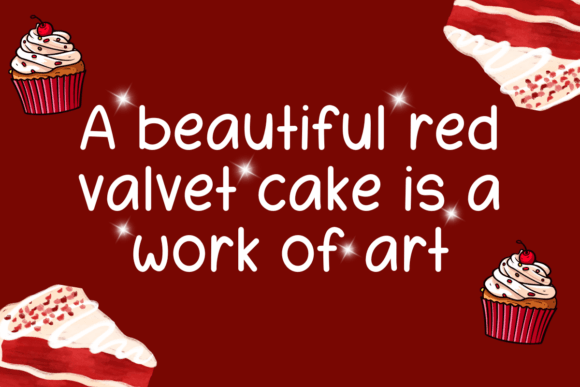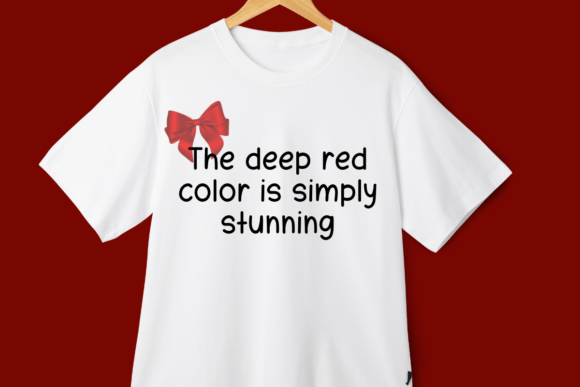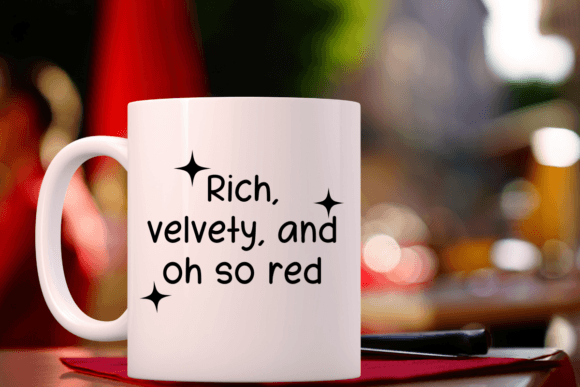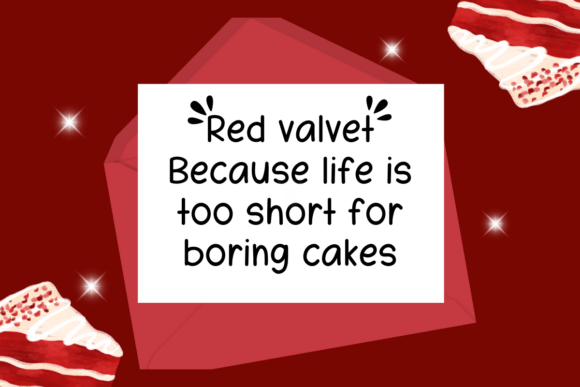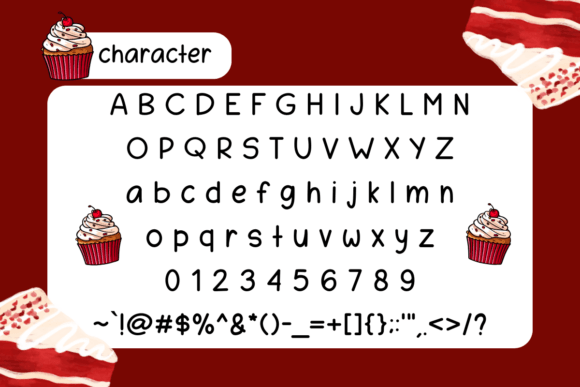
Introduction to Red Valvet Font
Do you remember that moment when you’re brainstorming ideas for a creative project, and everything just clicks into place? You’re envisioning the perfect design, the perfect font, and the perfect color palette. For many designers, finding the right font can be the game-changer that takes their project from good to great. And that’s exactly where the Red Valvet Font comes in – a fun, high-quality sans serif font that’s perfect for a wide range of creative ideas.
Whether you’re working on a memo, journal, or planner, the Red Valvet Font is a versatile design resource that’s sure to impress. With its transparent background and free download option, you can easily incorporate it into your project without any hassle. And the best part? It’s suitable for so many different themes and ideas, from cardinals and Christmas to funky fall designs and zodiac-inspired mockups.
As a designer, you know how valuable it is to have access to high-quality design resources like the Red Valvet Font. It’s the perfect addition to any design arsenal, and can help take your creative projects to the next level.
Key Features of Red Valvet Font
- High-quality, unique font design ideal for creative projects
- Comes with a transparent background, allowing for versatile design usage
- Resolution: Optimized for high-resolution displays and printing
- Unique characteristics: Distinctive style and elegant appearance
Honest Review: Red Valvet Font
I recently came across the Red Valvet Font, and I must say it’s a fantastic addition to my design resources. As a designer, I’m always on the lookout for high-quality fonts that can elevate my creative projects. The Red Valvet Font does just that. Its unique style and elegant feel make it perfect for a variety of design applications.
What works well: ✨ The font is available for free download, making it a great resource for designers on a budget. The transparent background option also allows for seamless integration into any design project. The font’s versatility and high quality make it an excellent choice for both digital and print designs.
Overall impression: The Red Valvet Font is a valuable design resource that offers a lot of potential for creative projects. Its unique style and high quality make it a great addition to any designer’s collection. Just be sure to check the licensing terms before using it in a commercial project.
- Unique and elegant style
- Versatile for digital and print designs
Introduction to Red Valvet Font
The Red Valvet Font is a high-quality, free download design resource perfect for creative projects. Its unique style and transparent background make it an ideal choice for designers looking to add a touch of sophistication to their work.
Common Use Cases for Red Valvet Font
The Red Valvet Font is perfect for a variety of design projects, including business cards, brochures, posters, and social media graphics. Its high-quality design and transparent background make it an ideal choice for designers looking to create professional and visually appealing designs.